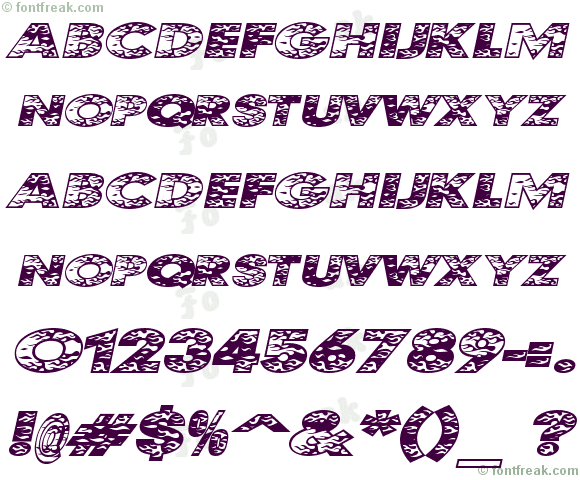
Kustom Kar
Kustom Kar, designed by Ray Larabie in 1999, is a distinctive display font that embodies a playful and eye-catching aesthetic. Characterized by its bold, heavy stroke weight and unique decorative elements, this font stands out with its intricate patterns and textures. The letters are filled with a striking design that resembles abstract automotive motifs, evoking a sense of movement and creativity. The overall spacing is thoughtfully balanced, allowing for legibility while maintaining a dynamic visual appeal.
This font is particularly well-suited for a variety of creative applications. Its playful nature makes it an excellent choice for designing vibrant movie posters that aim to grab attention. Additionally, Kustom Kar can be effectively used in promotional materials for car shows or automotive-themed events, where its unique style can resonate with the target audience. Small business owners in the automotive sector can leverage this font for their branding, signage, or promotional flyers. Moreover, it can add a fun flair to restaurant menus, particularly those focused on casual dining or retro themes.
Kustom Kar appeals to graphic designers, content creators, and anyone looking to make a bold statement with their designs. Whether you are crafting an eye-catching advertisement or creating custom merchandise, this font provides the perfect blend of creativity and character.
In summary, Kustom Kar is not just a font; it’s a design statement that captures attention and communicates a sense of fun and adventure. Its unique visual characteristics and versatility make it an exceptional choice for various projects, making the Kustom Kar font free download a valuable resource for creatives seeking to enhance their work with a touch of personality.